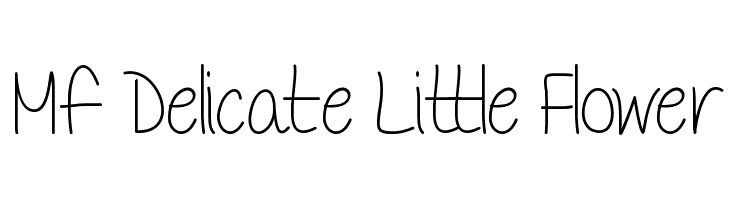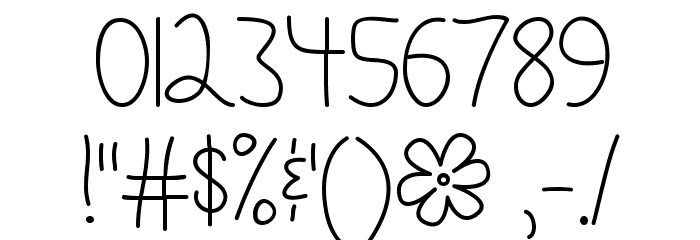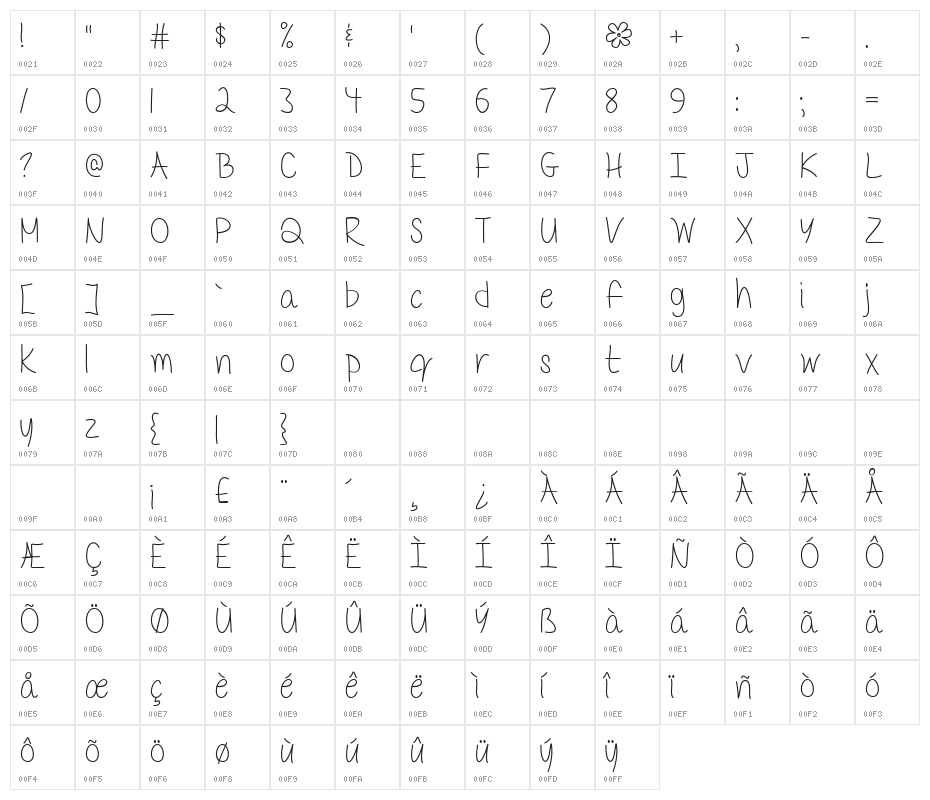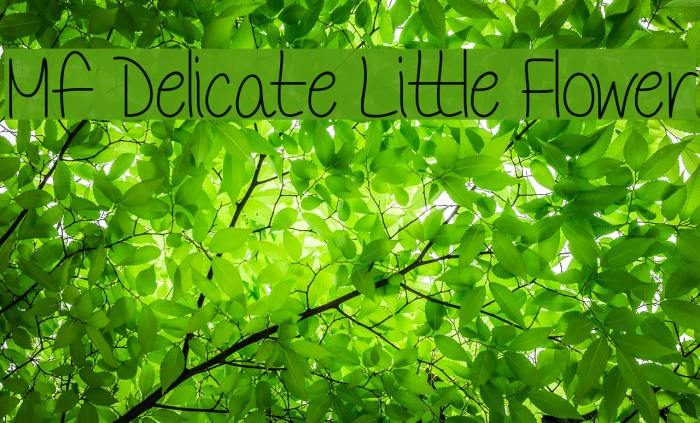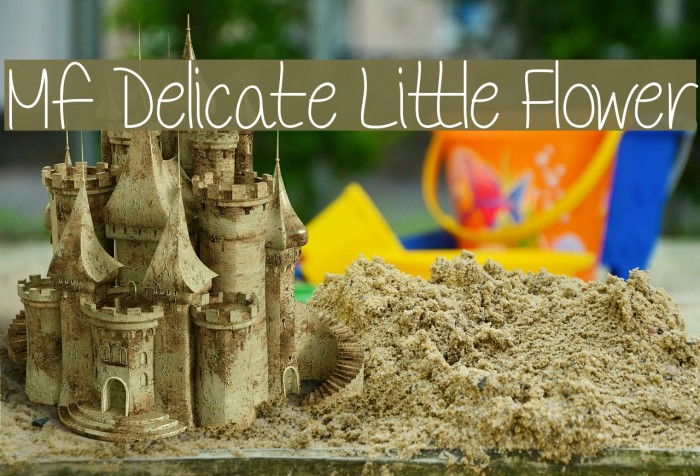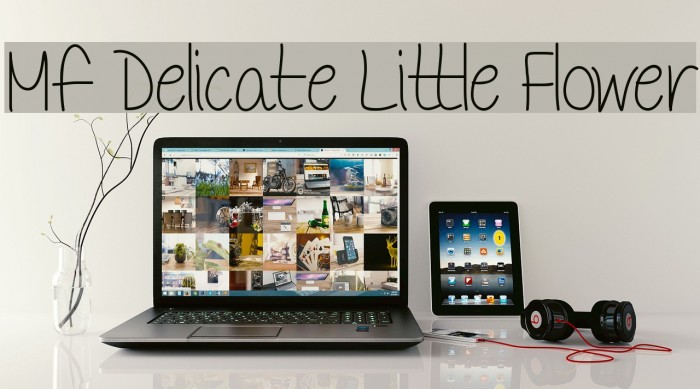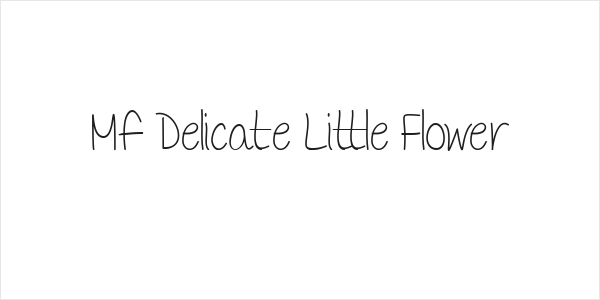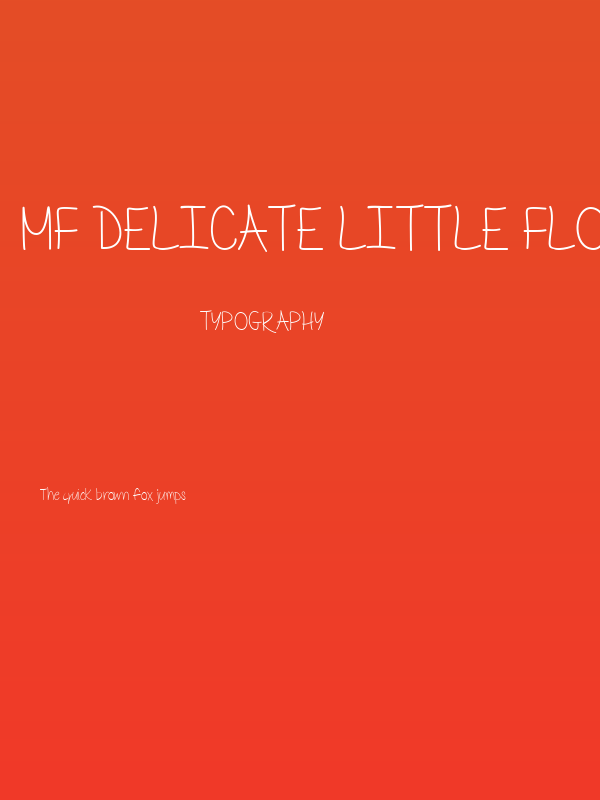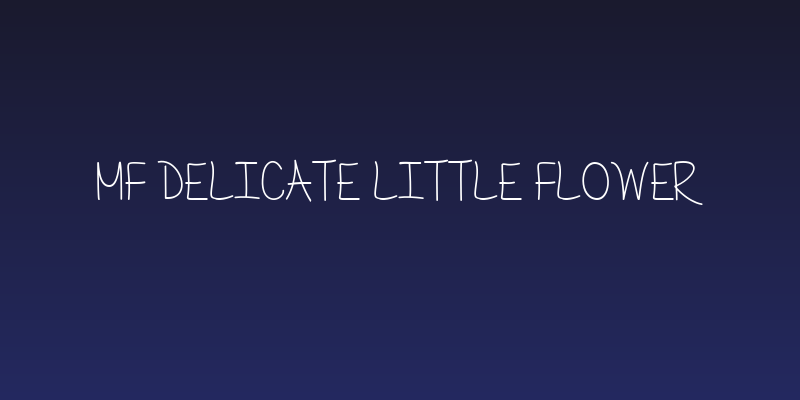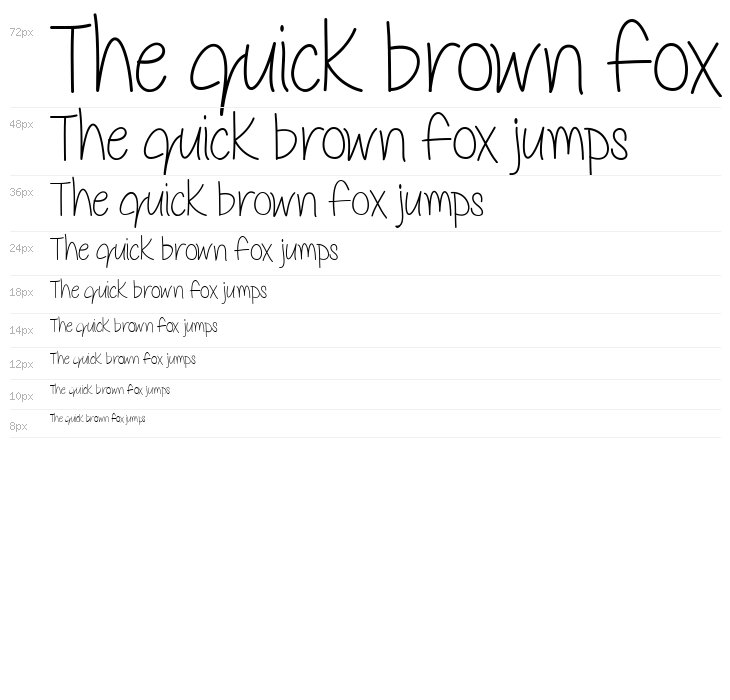
Mf Delicate Little Flower Font
Mf Delicate Little Flower Description
This font features a playful and whimsical handwritten style, characterized by its thin, delicate strokes and slightly irregular letterforms. The uppercase letters are tall and narrow, while the lowercase letters maintain a consistent flow with rounded edges. The numerals are distinct and easy to read, complementing the overall casual aesthetic. Special characters are creatively designed, adding a touch of charm and personality. This font exudes a light-hearted and friendly vibe, making it suitable for projects that require a personal and approachable touch.
| Overall Style | Whimsical |
| Proposed Projects | Ideal for greeting cards, children's books, personal blogs, and creative branding projects. |